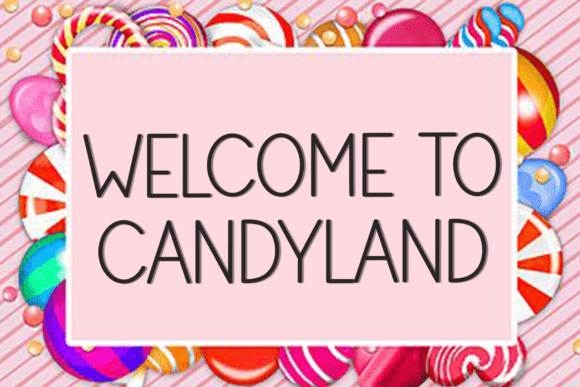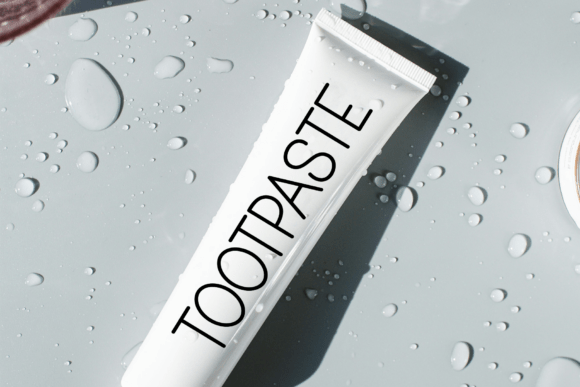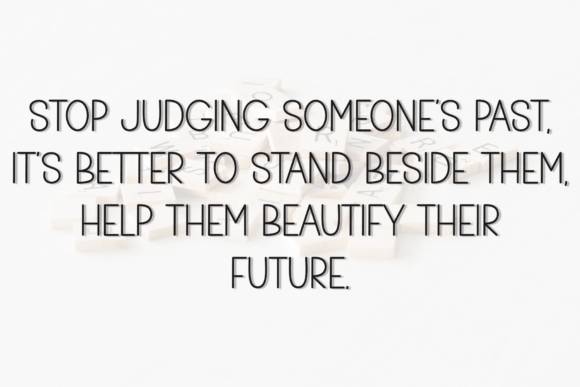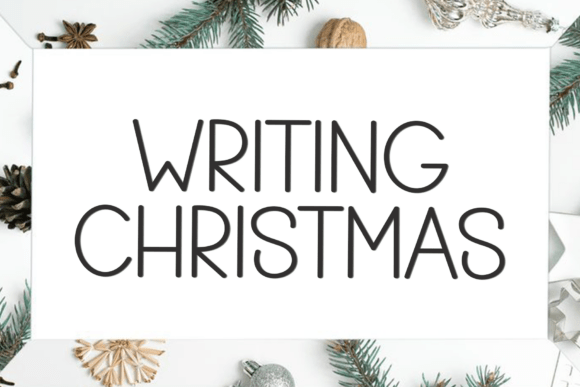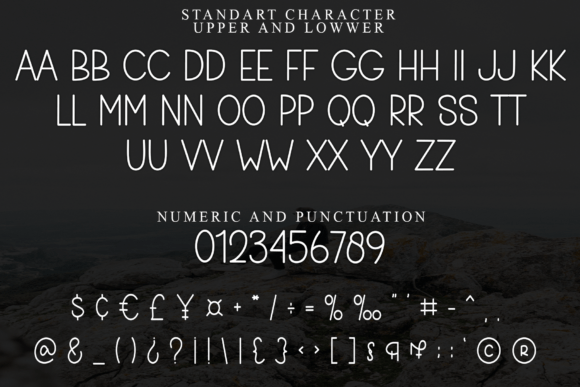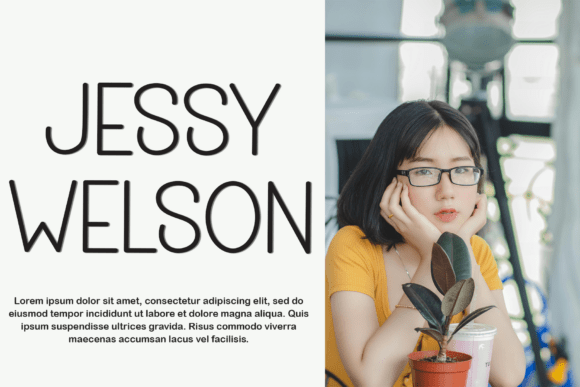
The Perfect Canvas for Your Creativity
You know that feeling when you’re working on a project and everything just clicks into place? You’ve got your color palette, your layout, and your font – and suddenly, it all feels just right. For many designers, that moment of clarity is often thanks to the humble yet powerful Beige Font. A crisp and modern sans-serif typeface, Beige Font is designed to be clean, approachable, and – above all – highly legible.
Whether you’re working on a modern branding project, a casual title, or a kids’ project, Beige Font is an excellent choice. Its minimalist structure and near-monoline weight make it incredibly versatile, allowing designers to push the boundaries of what’s possible with typography. And that’s why Beige Font is a valuable tool in every designer’s arsenal – it’s the perfect canvas for bringing your ideas to life.
Beige Font Key Features
- Font Family: Beige Font is a sans-serif font family.
- Unique Characteristics: Beige Font features a clean and minimalist design, with subtle rounded edges and a neutral color palette.
Designer Review: Beige Font
When I first laid eyes on the Beige Font, I thought it was just another run-of-the-mill sans-serif font. But as I started using it, I realized there’s more to it than meets the eye. ✨ Here are the things that worked well for me:
- Legibility: Beige Font is incredibly easy to read, even at smaller font sizes. Its clean lines and straightforward letterforms make it perfect for body text.
- Neutral tone: The font’s beige name is not just a marketing gimmick – it really does have a neutral, unobtrusive tone that works well in a variety of contexts.
However, as I continued to use the font, I started to notice some limitations ⚠️:
- Lack of personality: While Beige Font is great for body text, it’s not exactly the most exciting font to use for headlines or titles. It’s a bit too plain for those applications.
- Limited expressiveness: Beige Font doesn’t have a lot of character variations or special features, which can make it feel a bit one-dimensional at times.
Overall, I’d say Beige Font is a solid choice for body text, but it’s not the most exciting font out there. If you’re looking for something that’s easy to read and won’t distract from your content, Beige Font might be worth considering. But if you need a font with a bit more flair, you might want to look elsewhere.
Beige Font is commonly used for:
- Catalogs and brochures.
- Branding and packaging materials.
For optimal use, pair the Beige Font with a neutral color scheme and clean design elements.